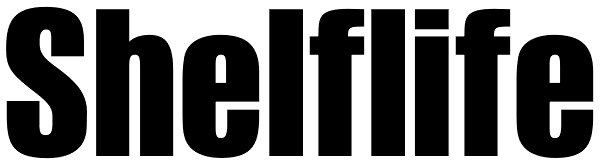
Shelflife
Shelflife is a display typeface with some extras under the lid. It features all the Standard Open-Type features you'd expect, like Class Kerning and Ligatures, plus some other useful additions and of course accented characters for most European...